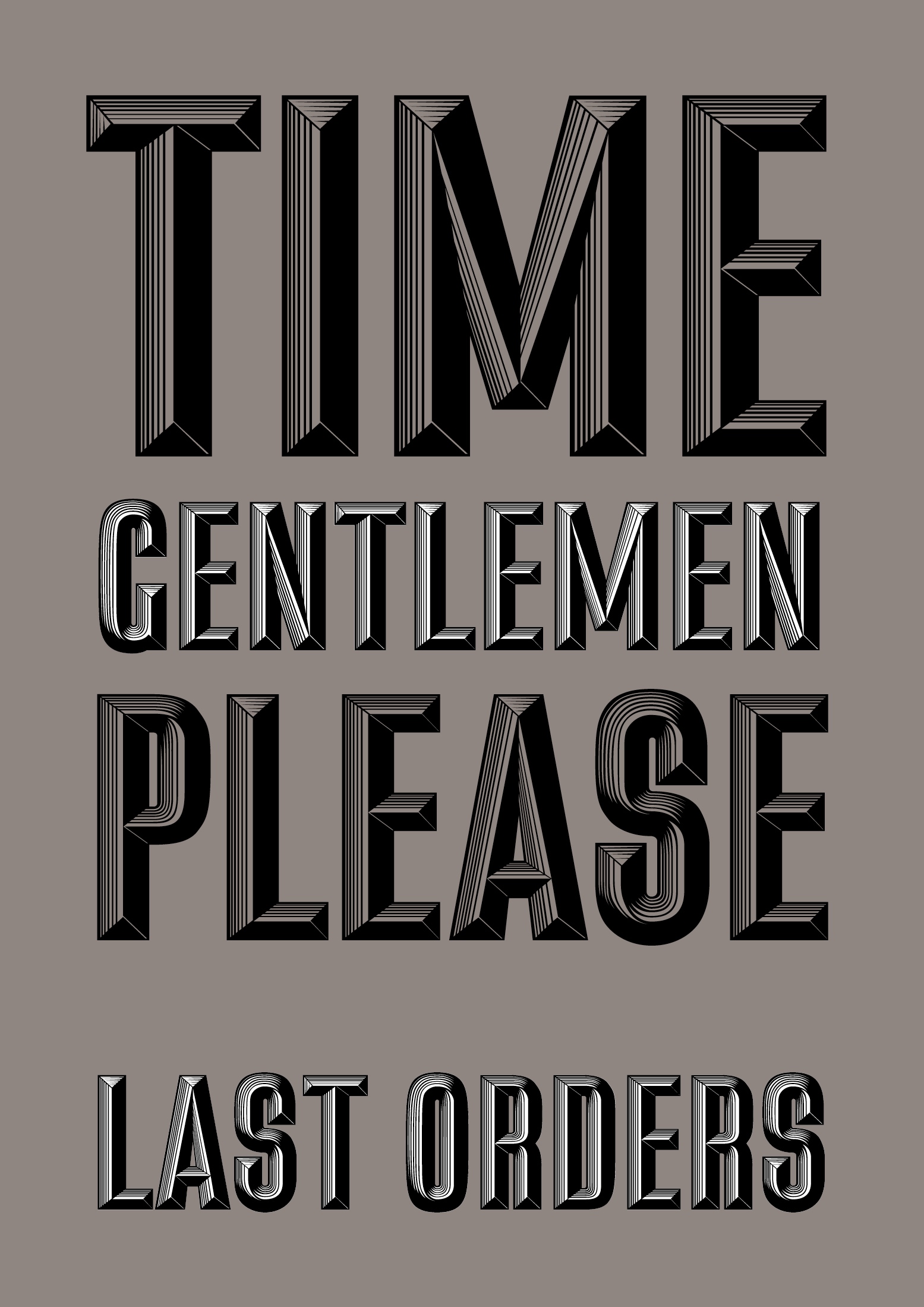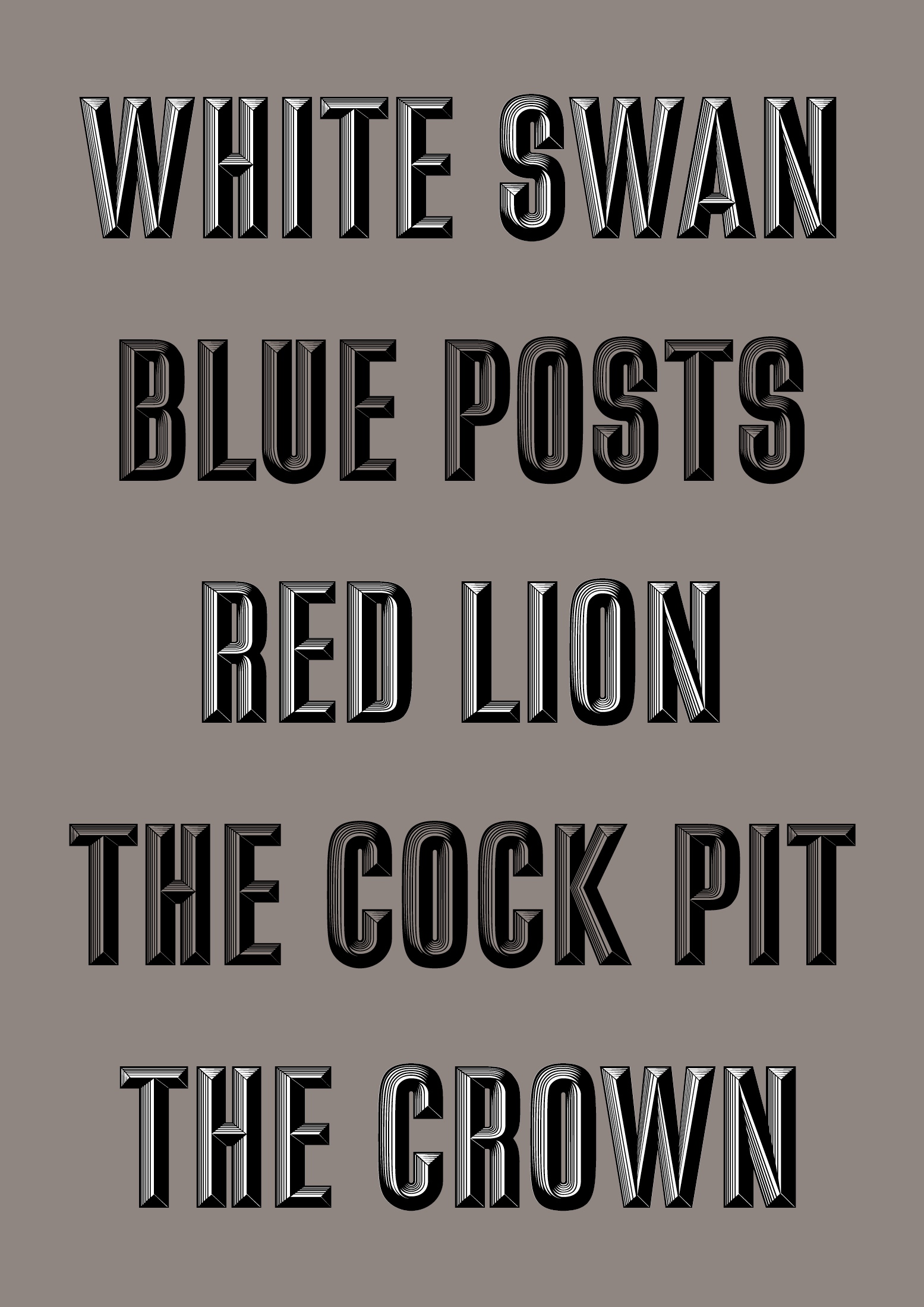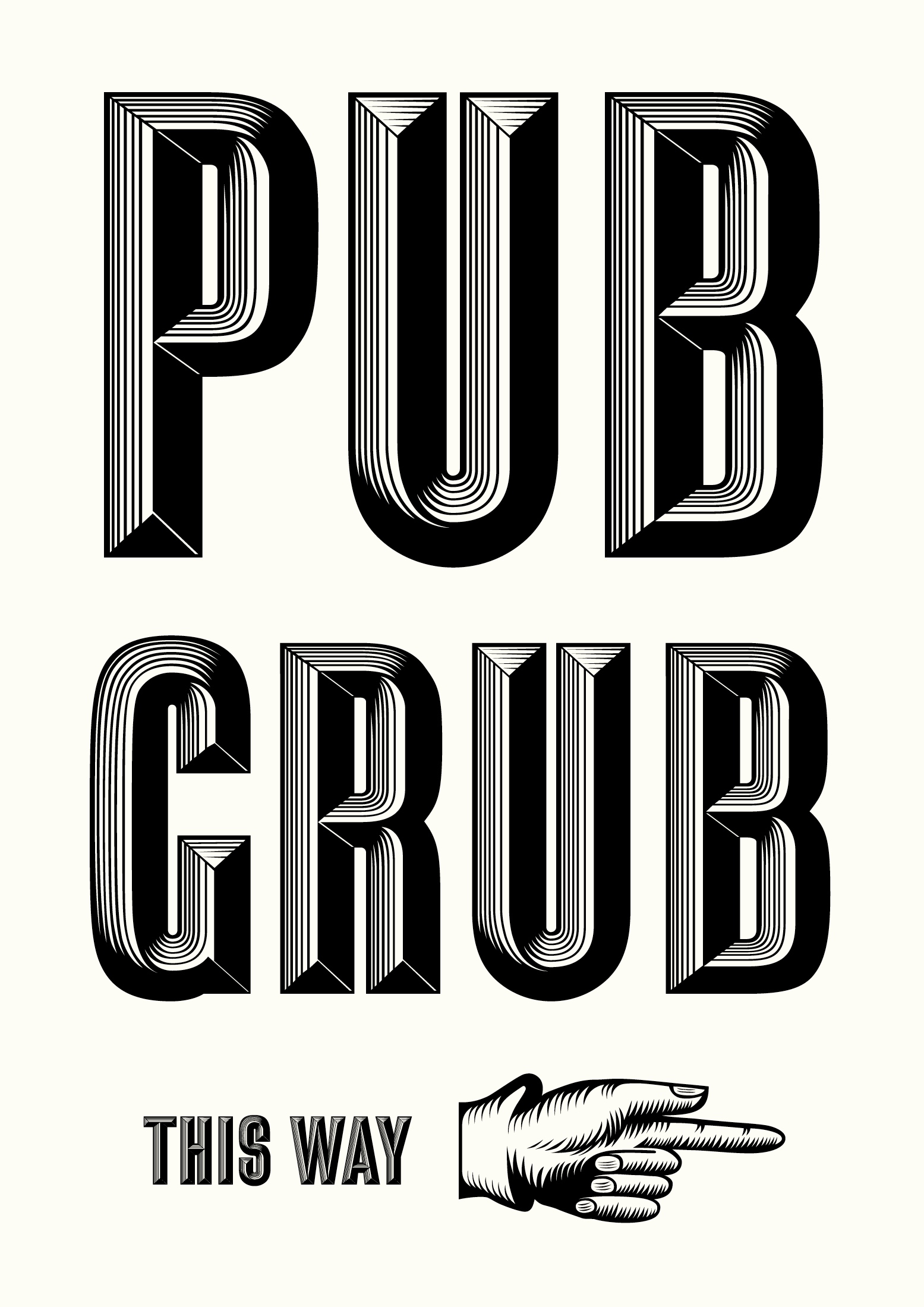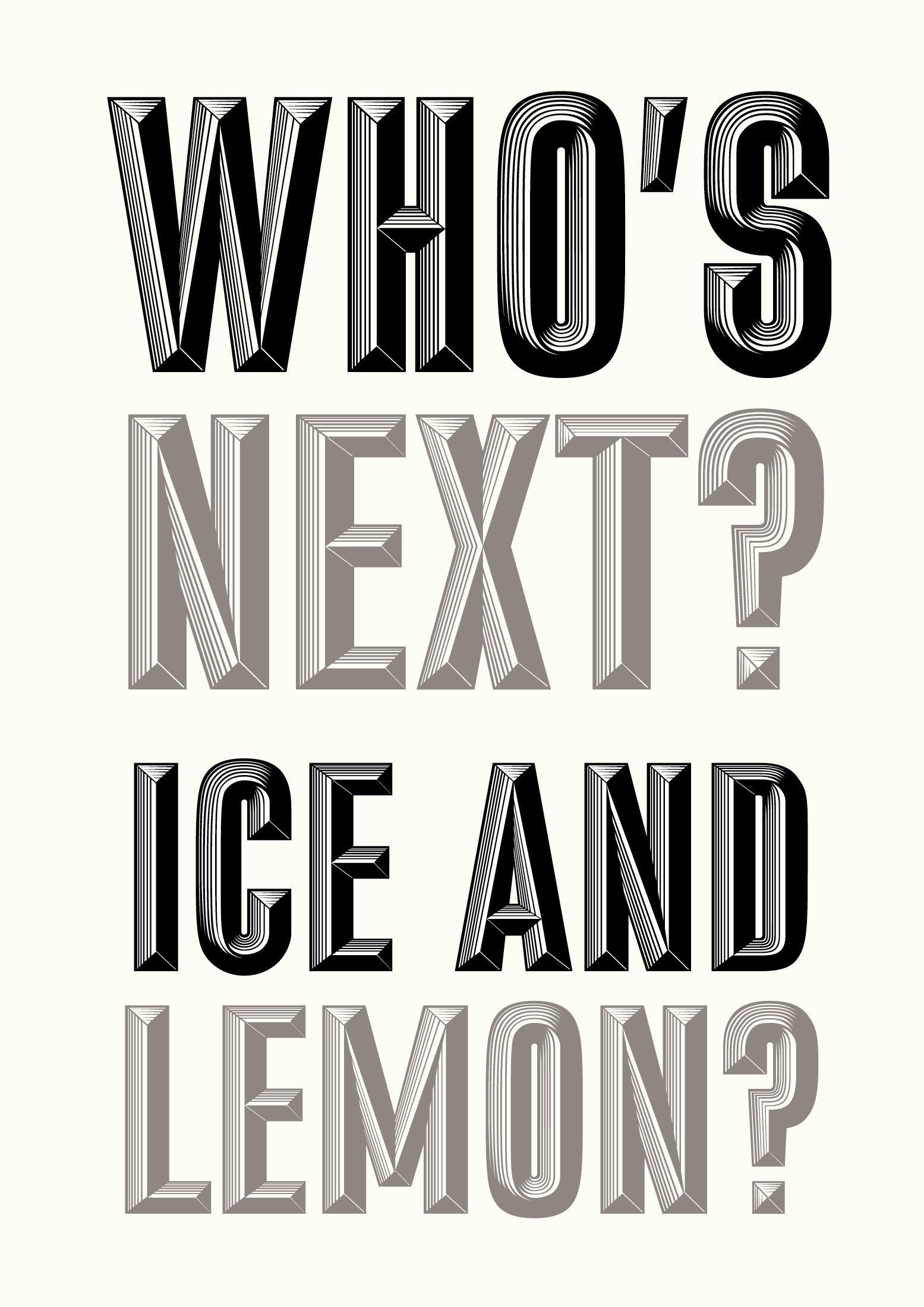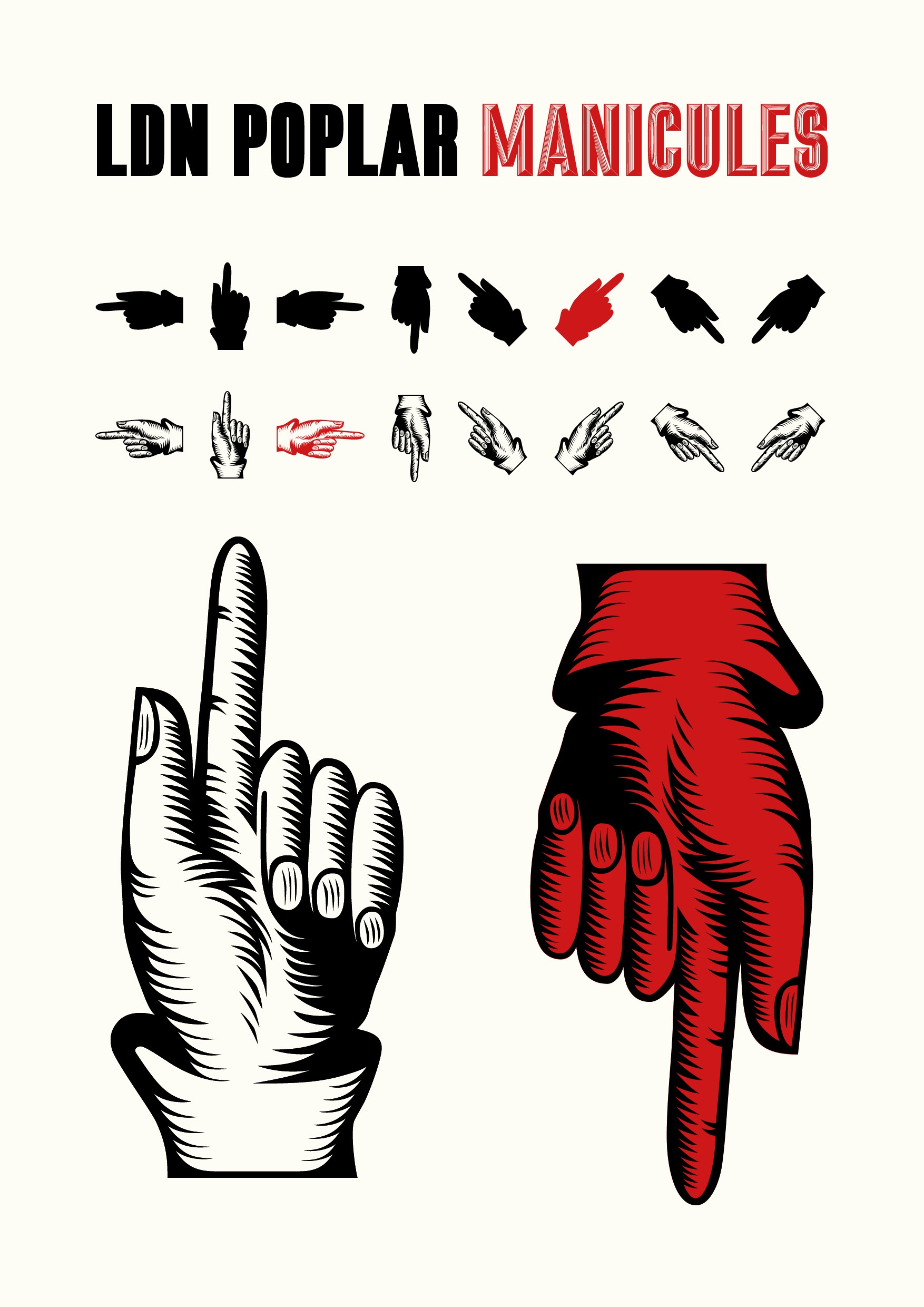
LDN Poplar
LDN Poplar is a new Woodblock styled typeface designed by Paul Harpin, inspired by a print he came across in the gents toilet of a London public house.
Intended for use at larger sizes, the condensed letterforms of the Foreground font take on a chiseled metallic 3D appearance.
The all caps typeface also contains eight directional manicules, and there’s a separate plain version to facilitate the printing of background colours.